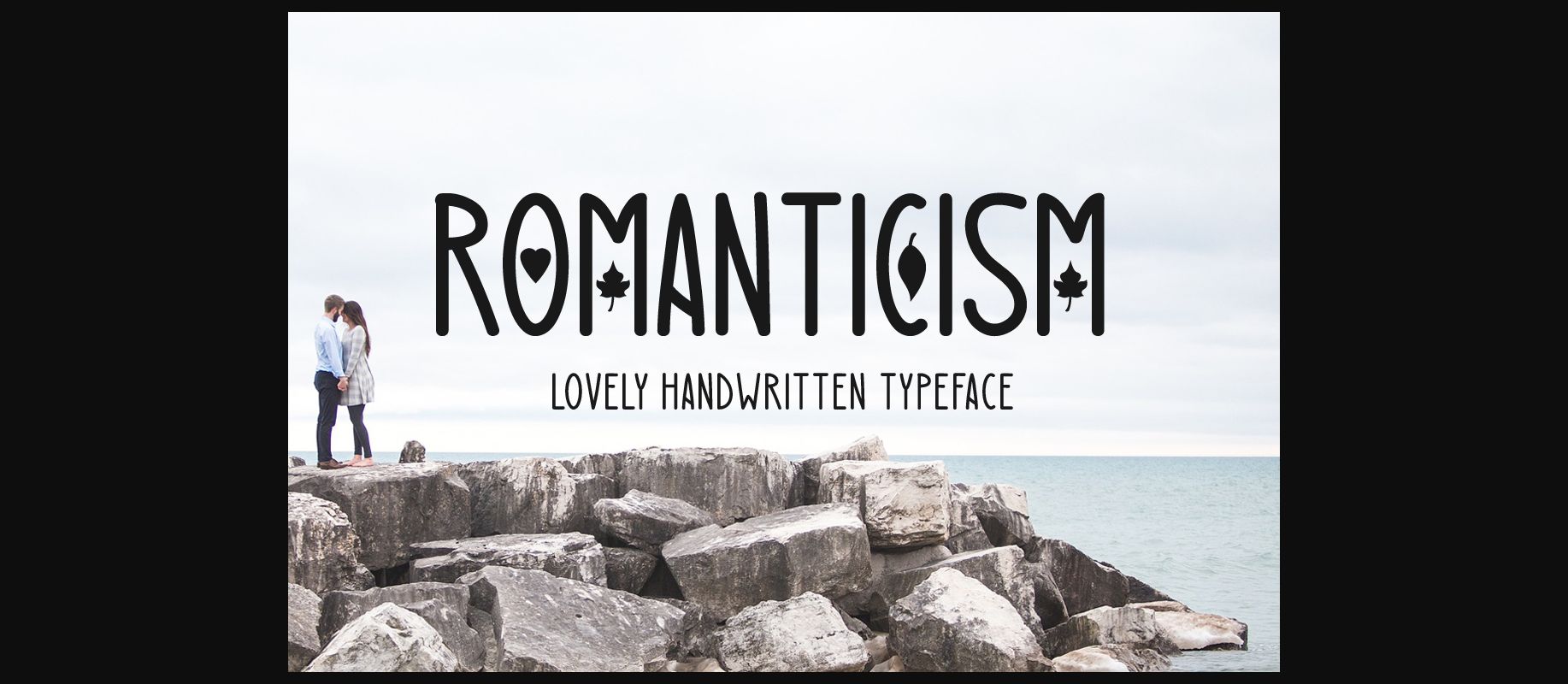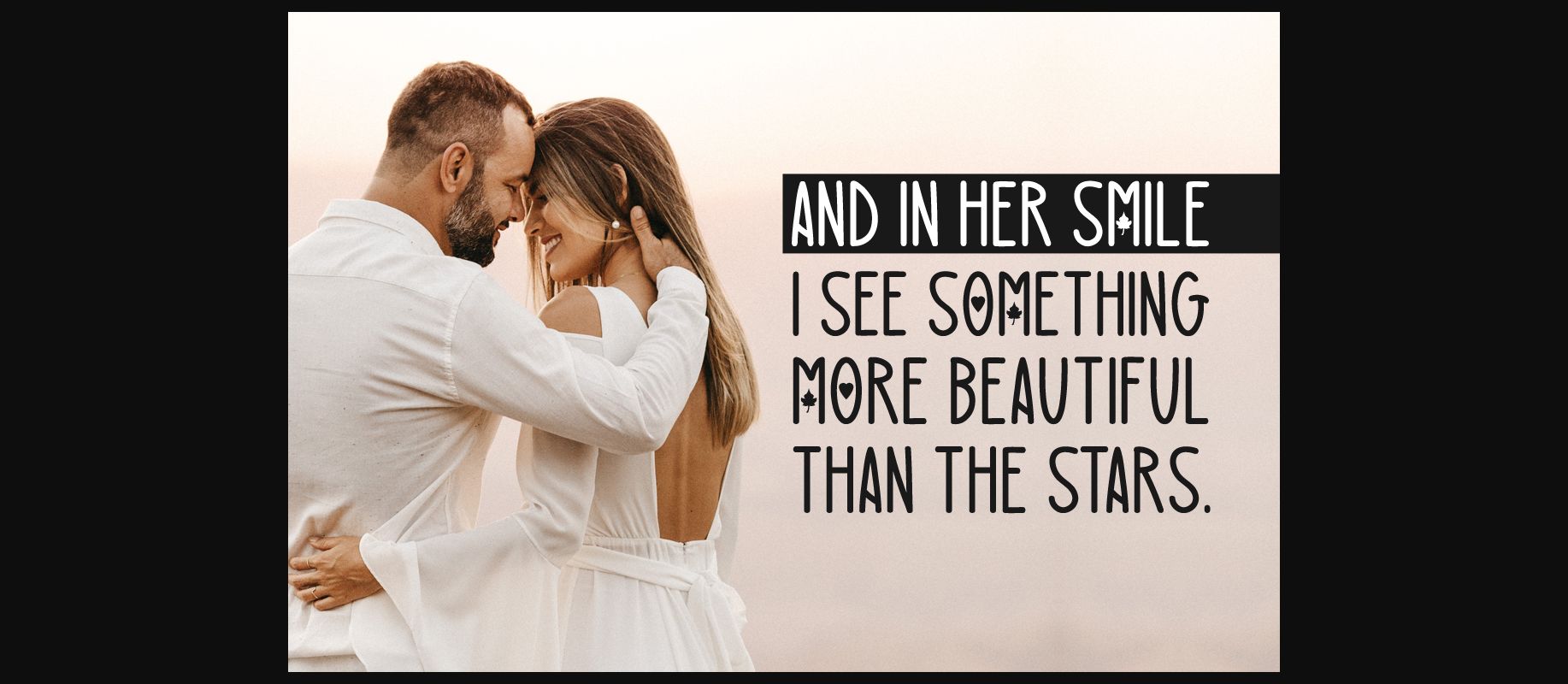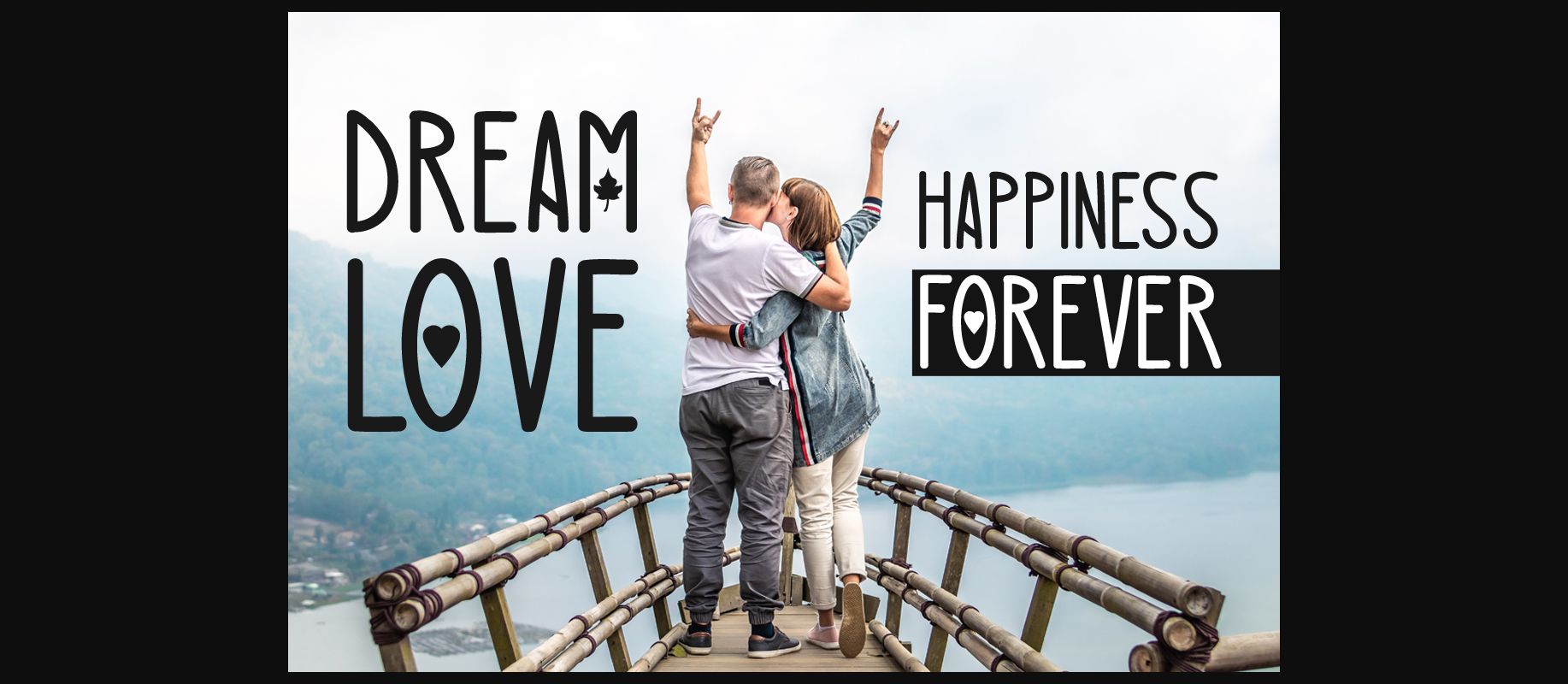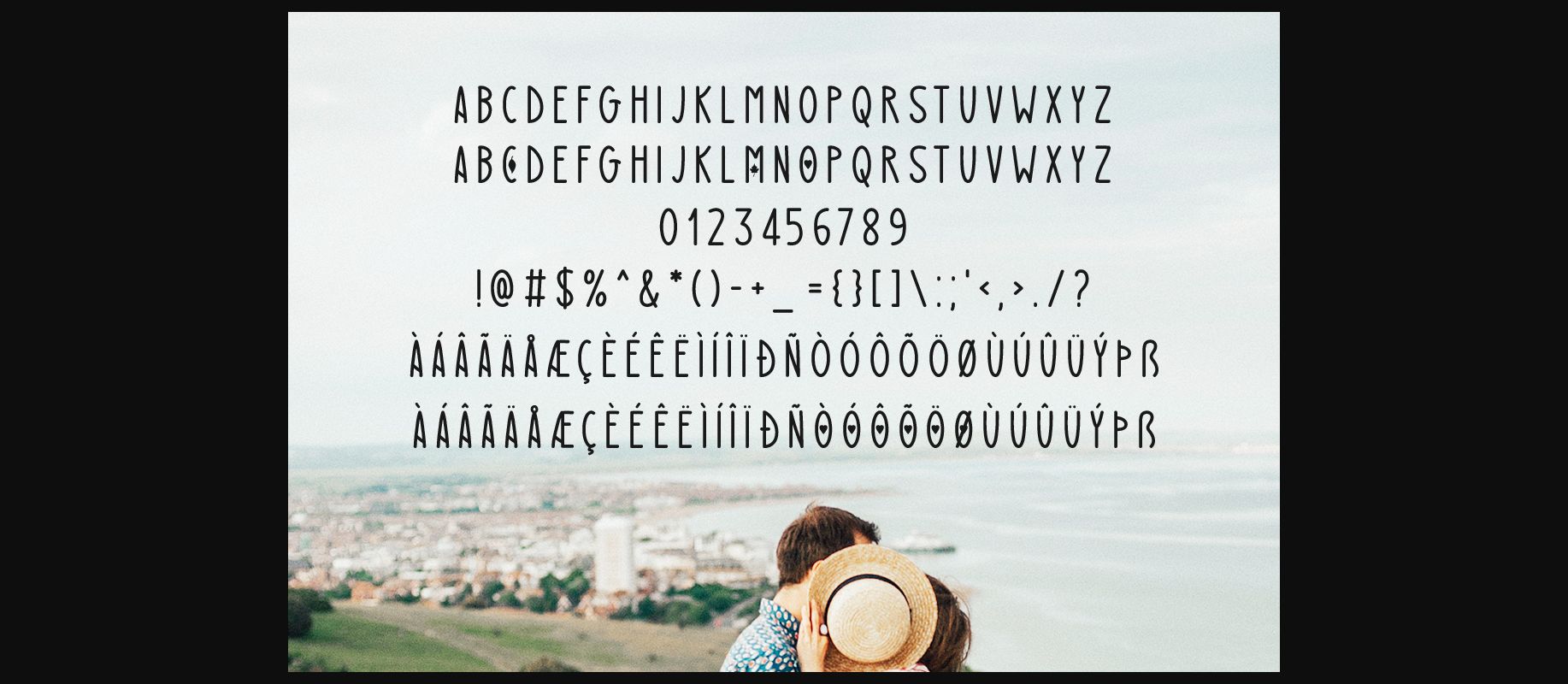
About Romanticism Font
Romanticism is a brand new decorative font featuring letters inspired by nature & love. Fall in love with its playful look & feel!